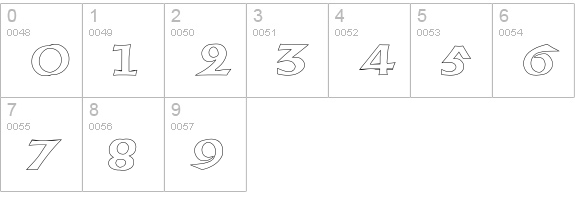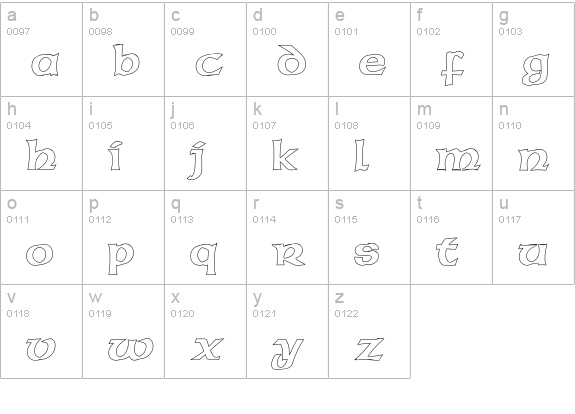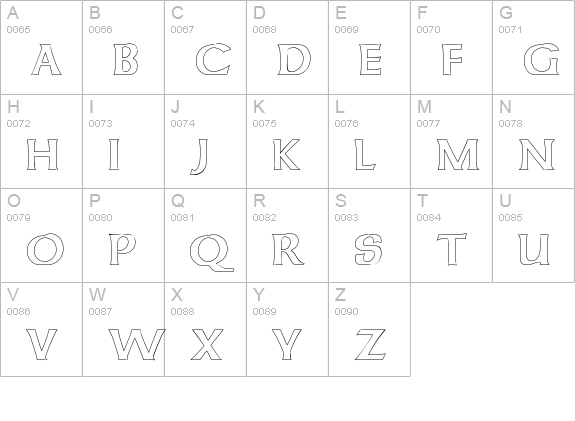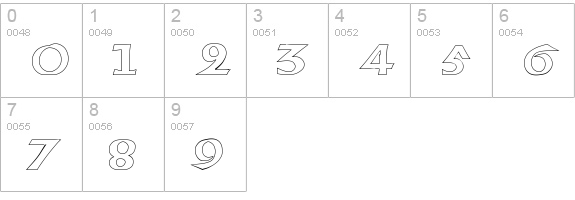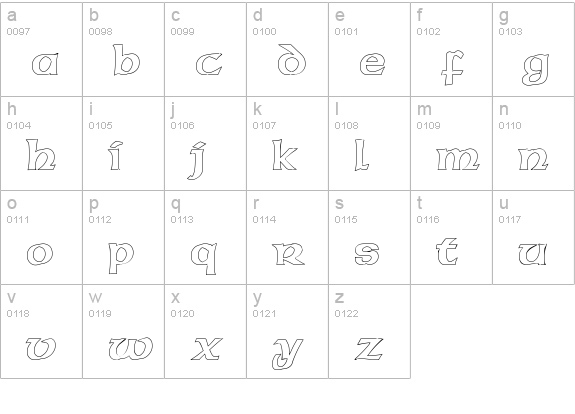
AmericanUncialOpen font is a classic and elegant typeface that exudes a sense of tradition and sophistication. With its unique Celtic-inspired design, this font is perfect for adding a touch of old-world charm to any project. The open, airy letterforms of AmericanUncialOpen give it a sense of lightness and grace, making it a versatile choice for a variety of design applications. One of the best things about AmericanUncialOpen font is that it is available for free download at FontsMarket.com. This means that you can easily access this beautiful font and use it in your projects without any cost. Whether you're working on invitations, posters, branding materials, or any other design project, AmericanUncialOpen font will help you achieve a timeless and sophisticated look. Download it today and add a touch of elegance to your designs.